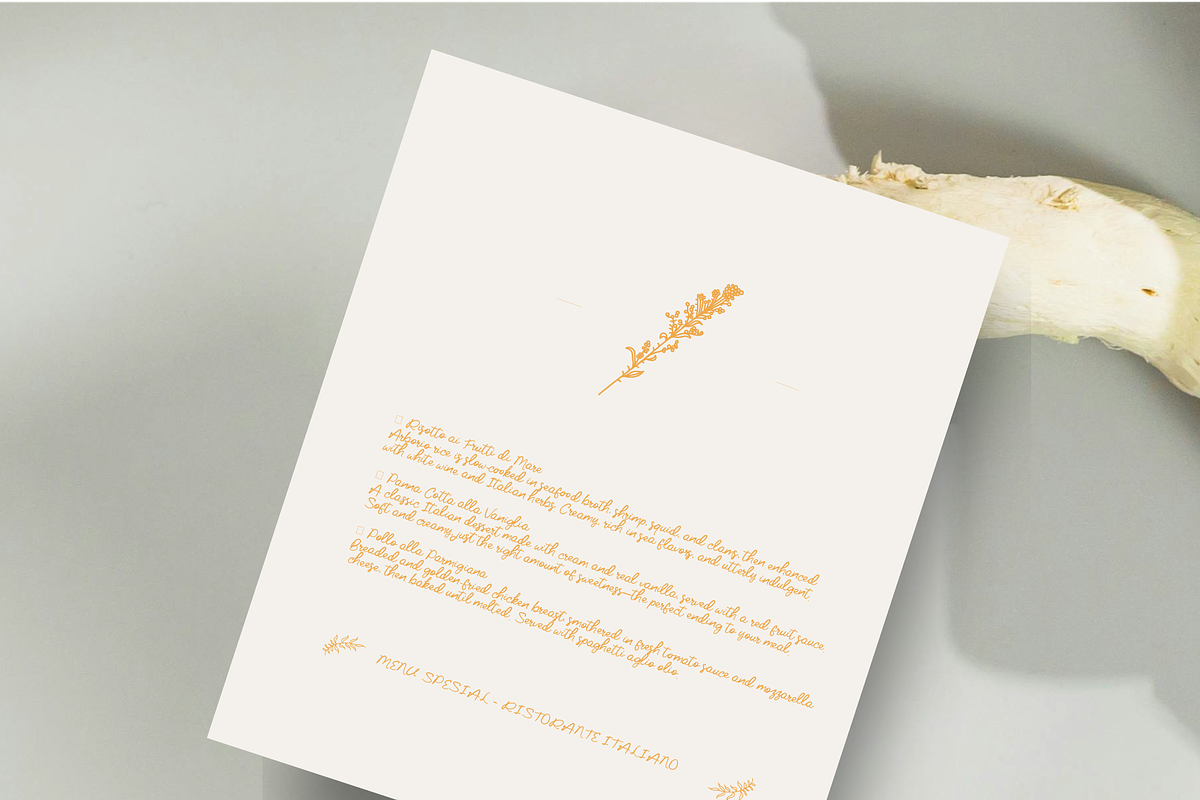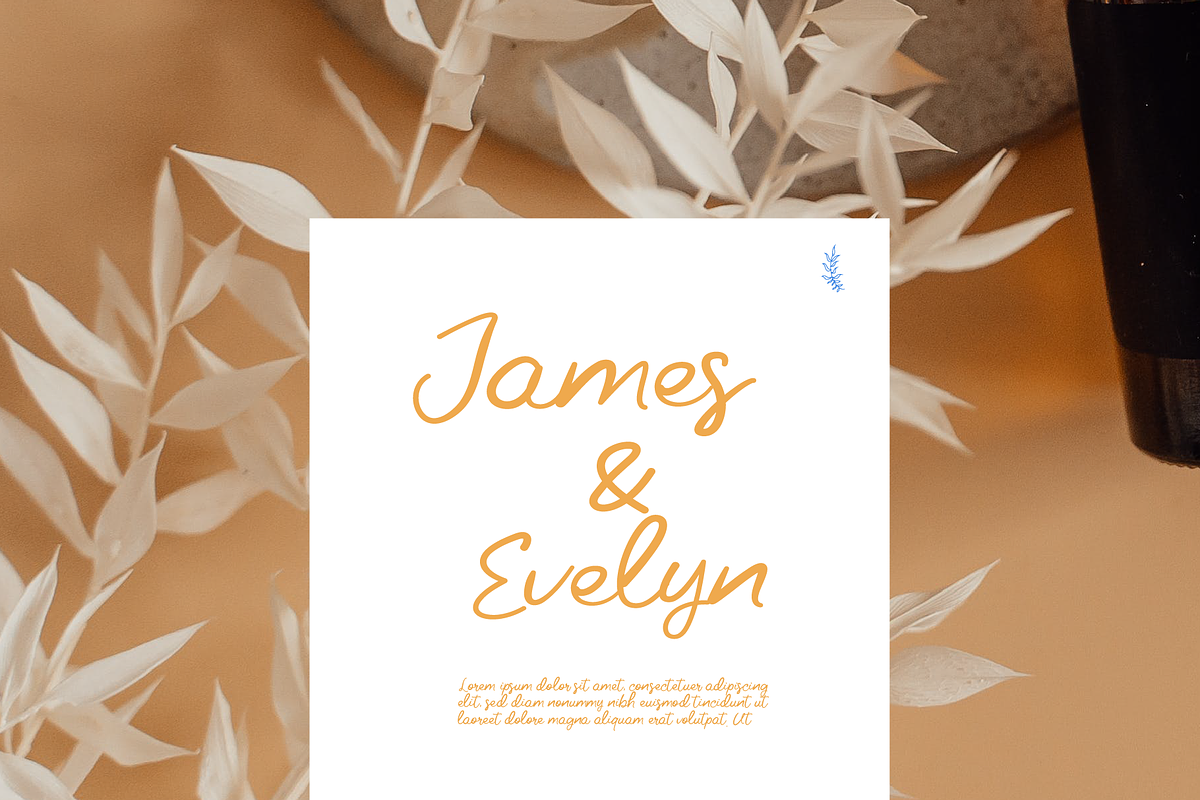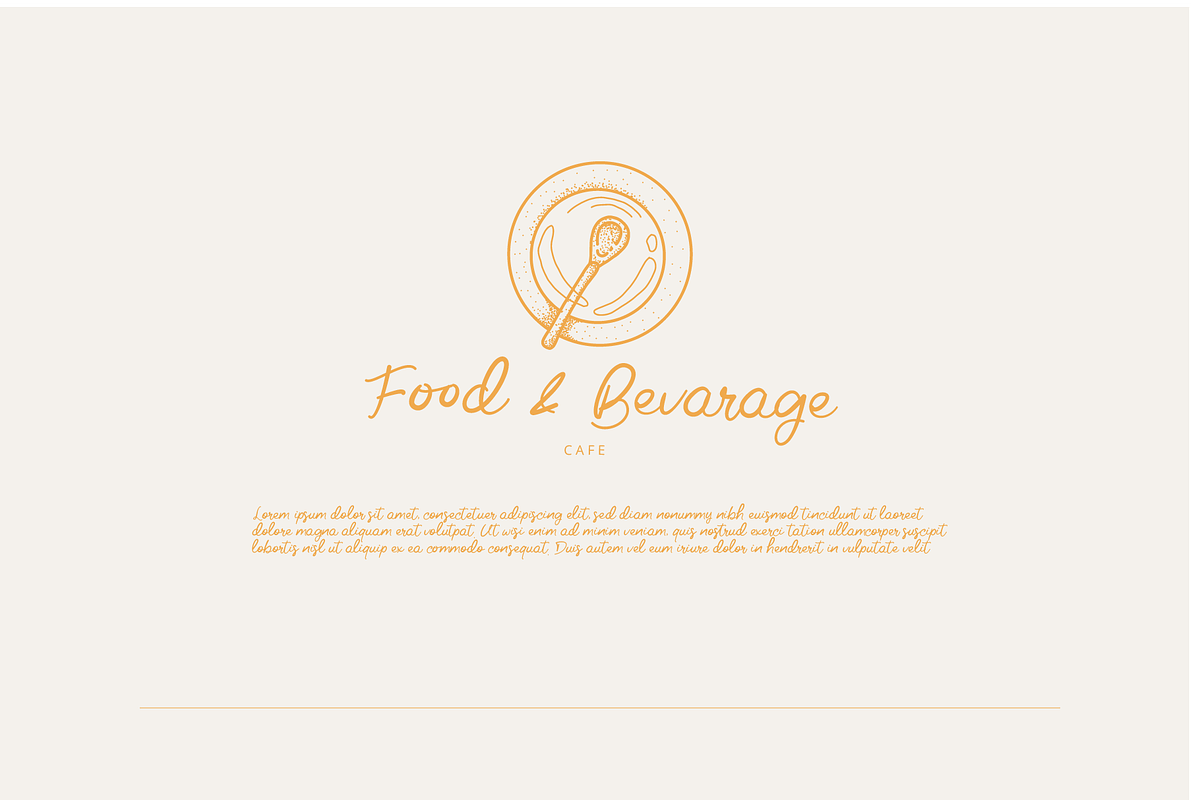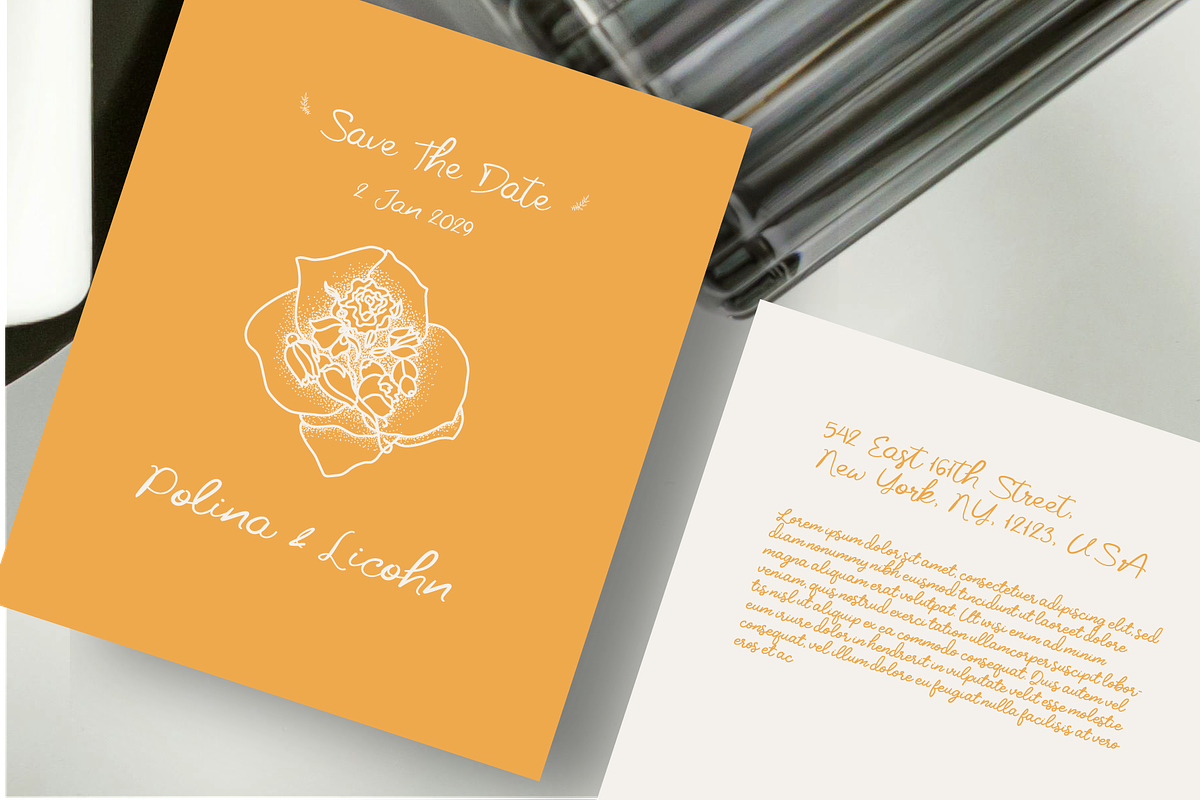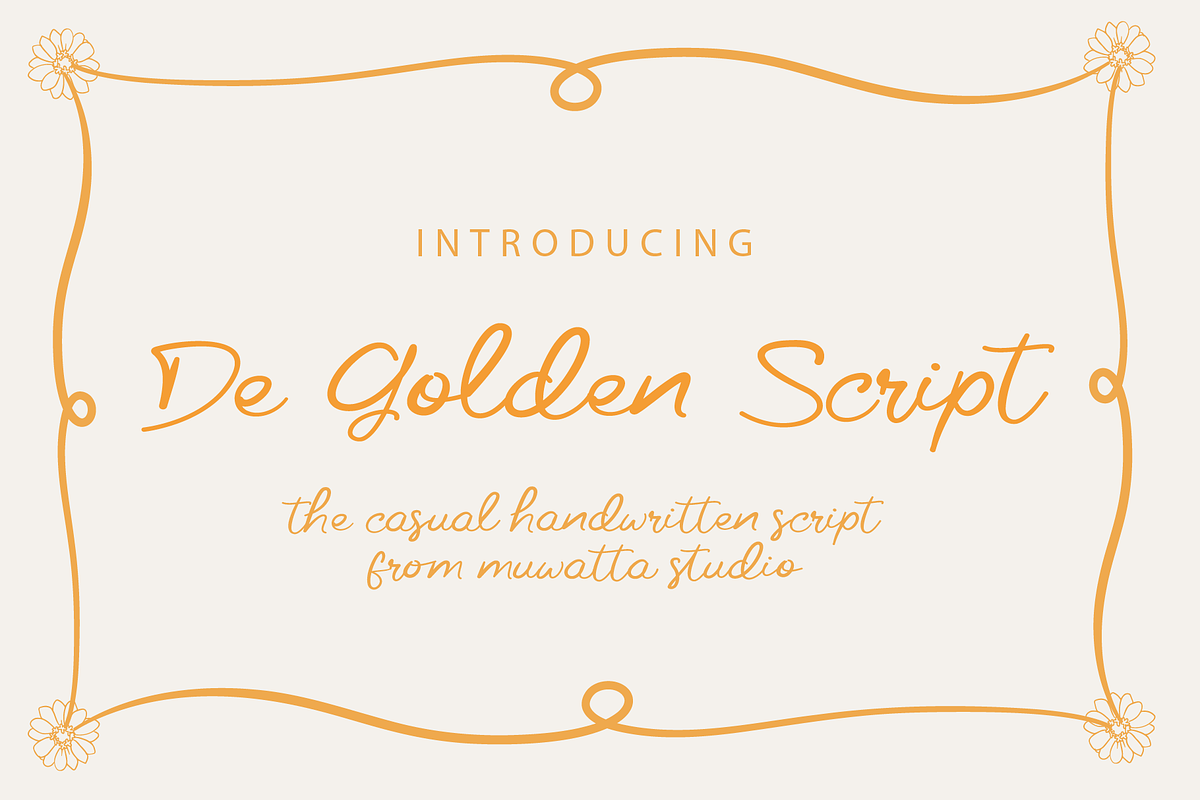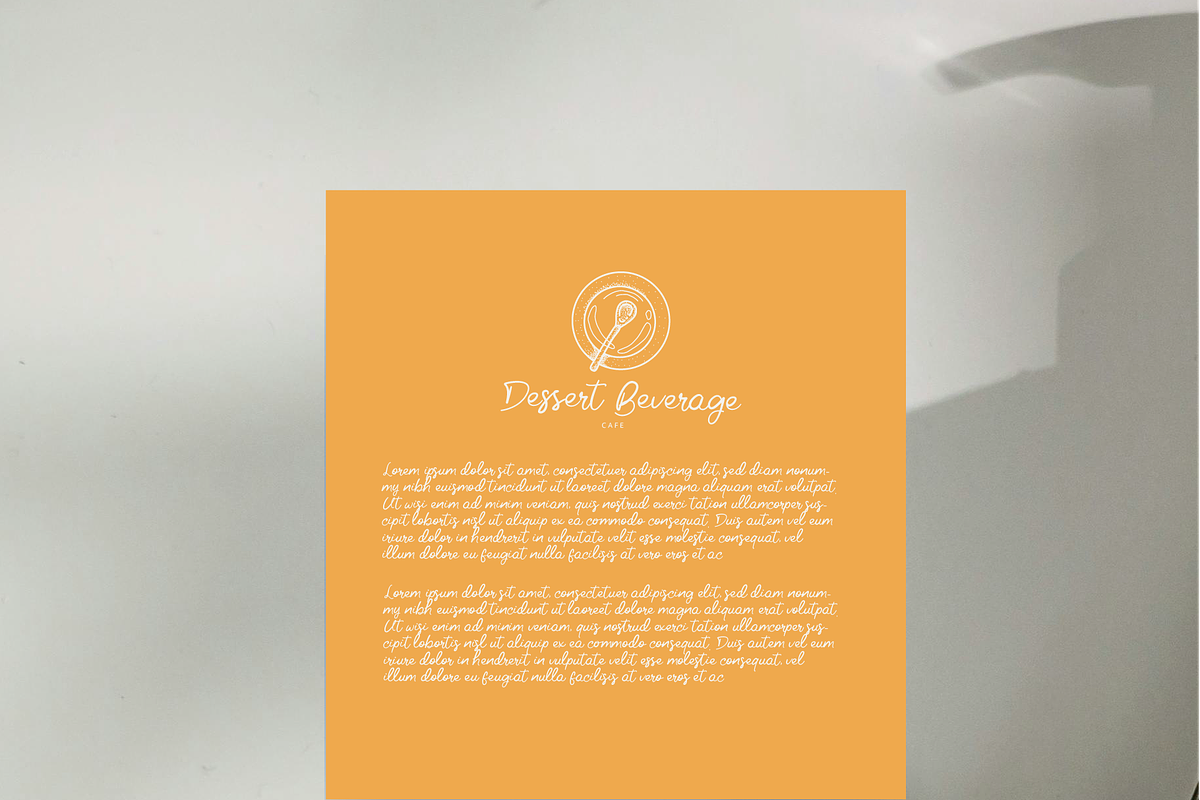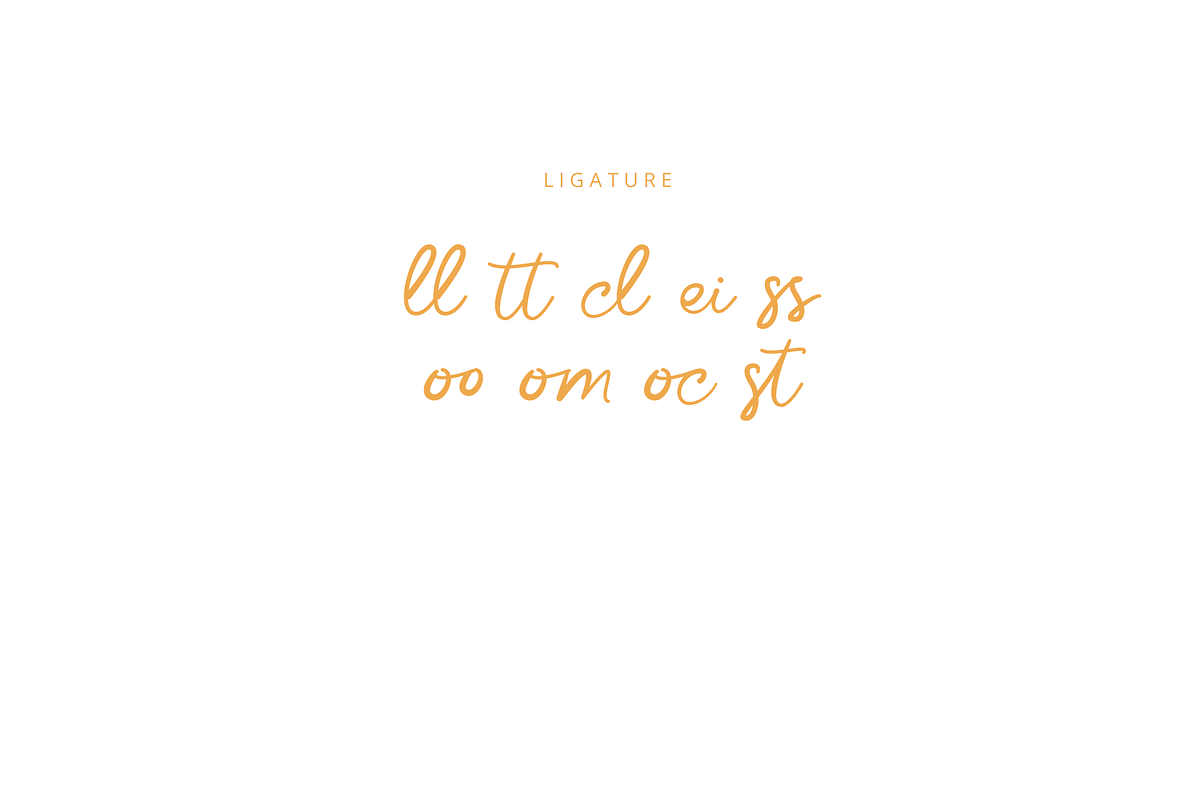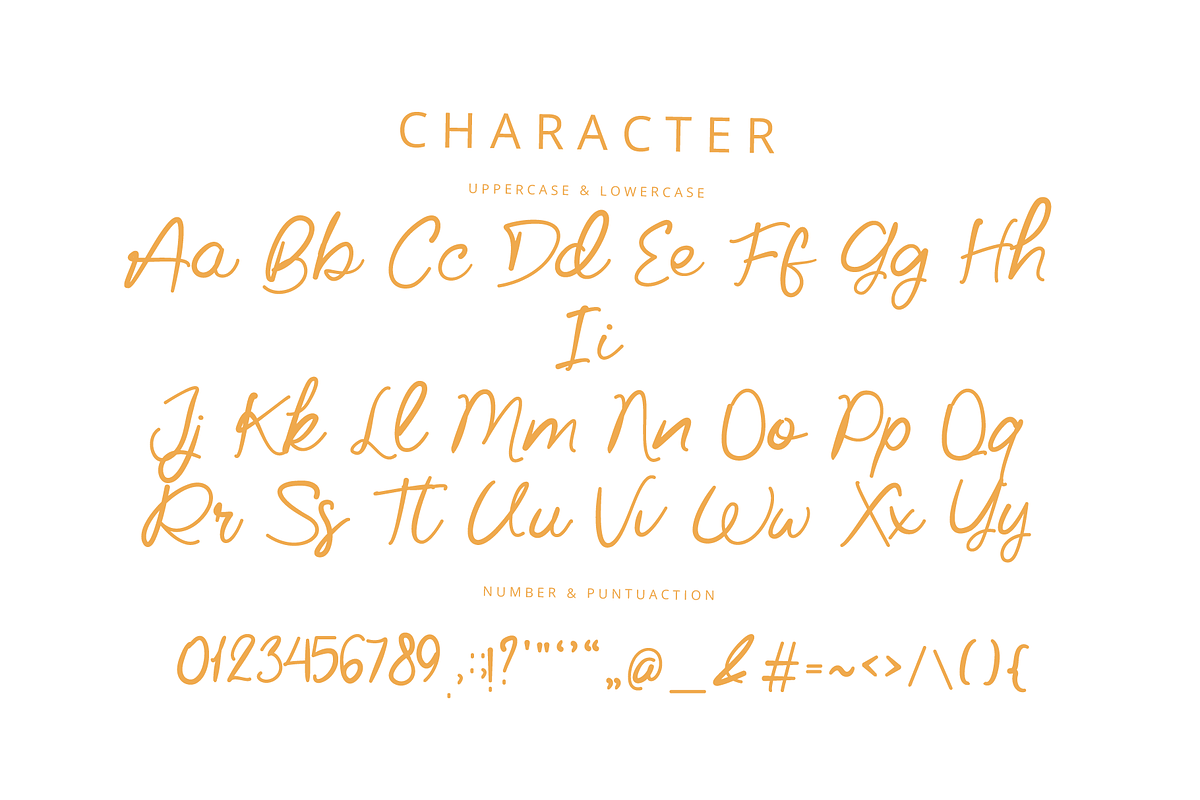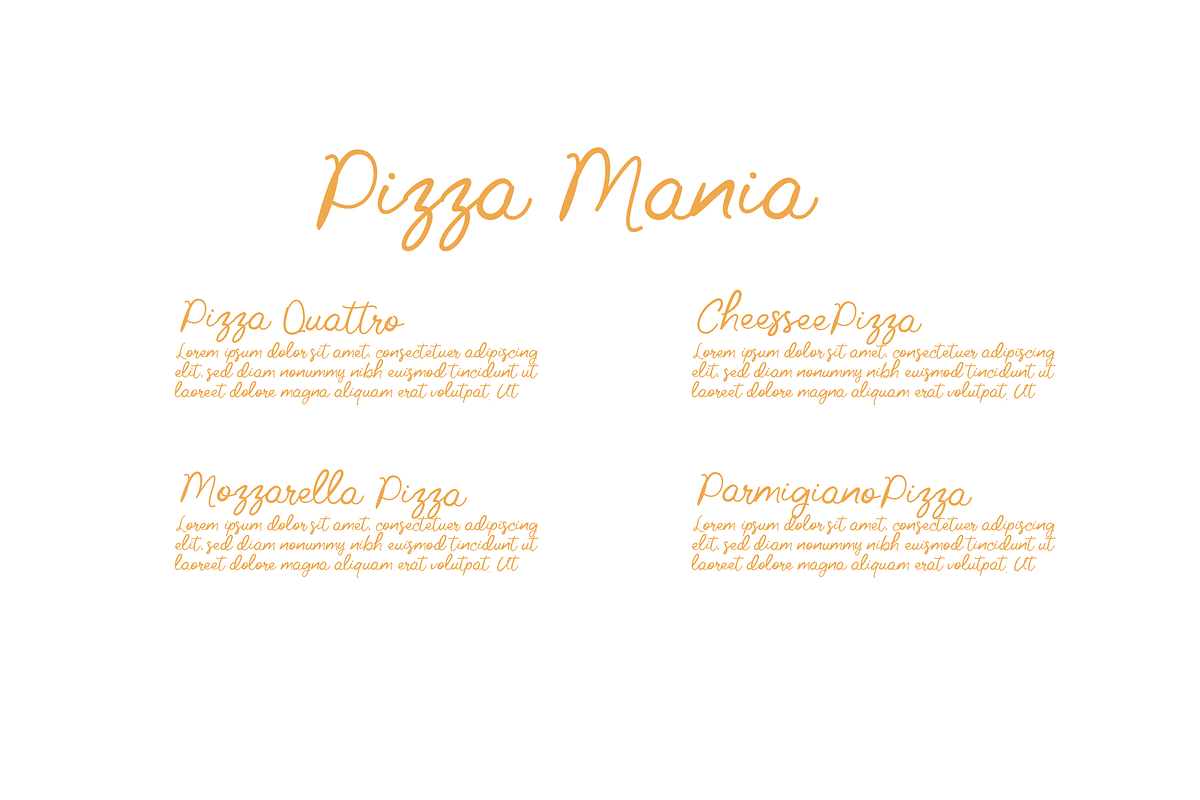
De Golden Script
The Golden Script Font is a beautiful blend of elegance and handwritten grace. Designed with a captivating whimsical touch, this font brings a warm, creative, and personal feel to every stroke—like gold ink flowing gently across your favorite paper. With its natural flowing letter characters and elegant yet friendly script style, The Golden Script is perfect for a variety of design needs such as wedding invitations, handmade logos, product packaging, inspirational quotes, and branding that wants to appear sweet yet professional.
-Full alphabet with Uppercase and Lowercase A-Z for script
-Numbers for all fonts
-Punctuation and symbols for all fonts
-Ligature Lowercase script
-Multilingual support all fonts